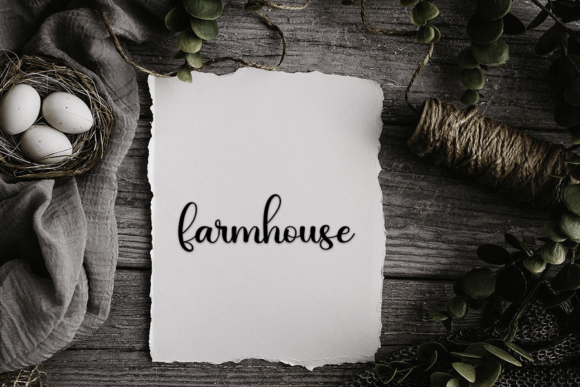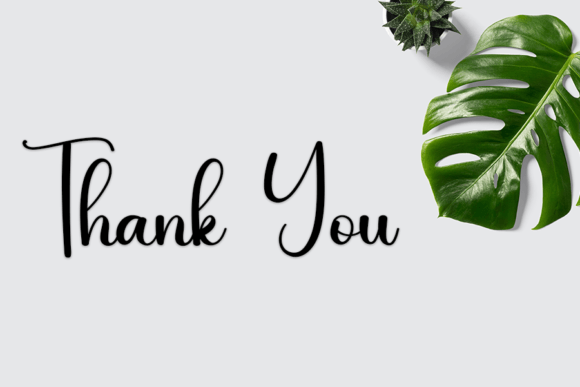
Signature Font
Signature is a delicate handwritten font carefully crafted for a cool and unique design. This font can be used to write letters, invitations, titles, and more.